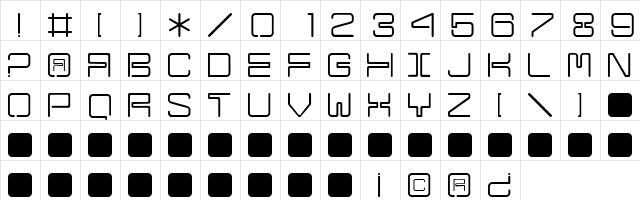
ARIA Normal
Design Context for ARIA Typeface
ARIA is a composed and adaptable typeface that performs quietly and consistently across a wide range of design contexts.